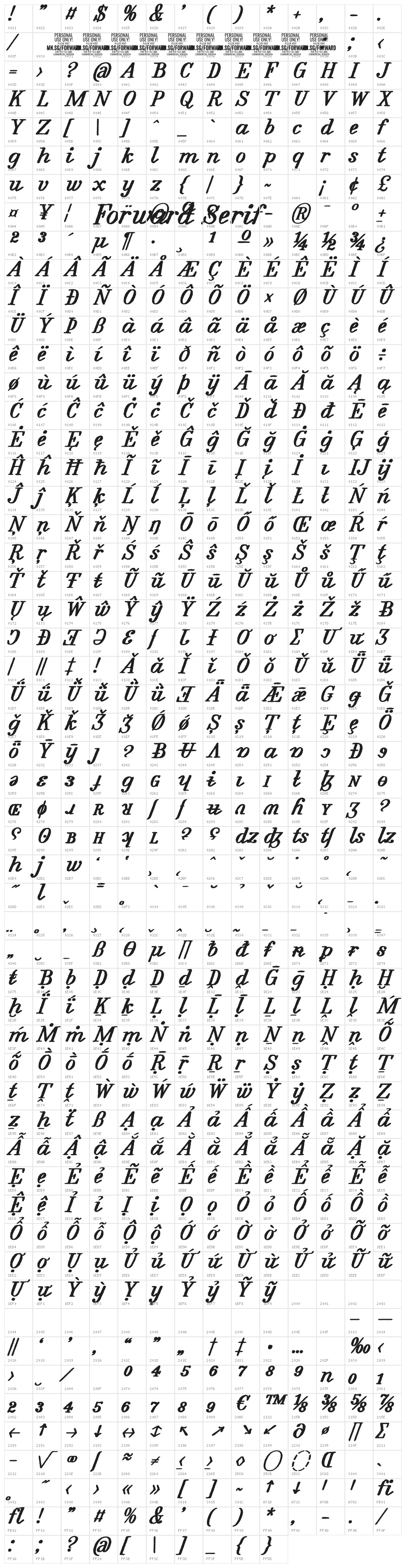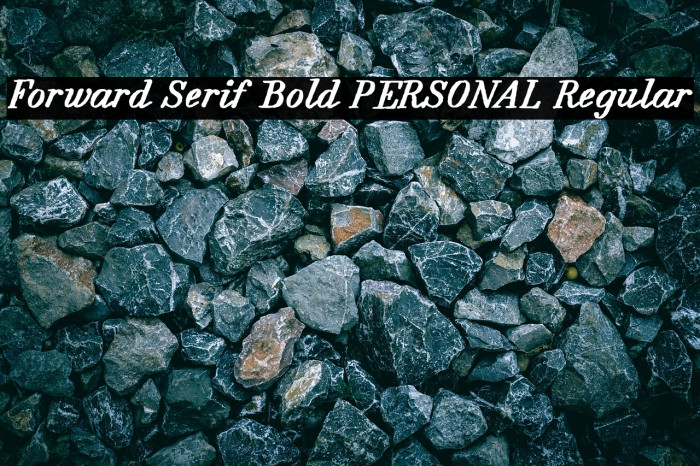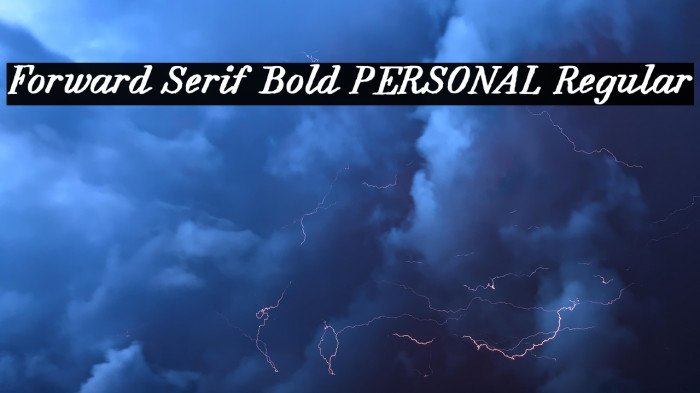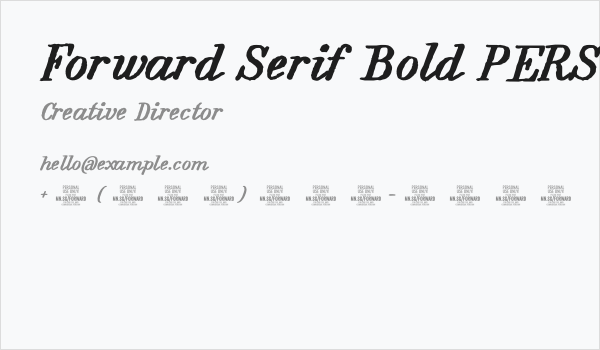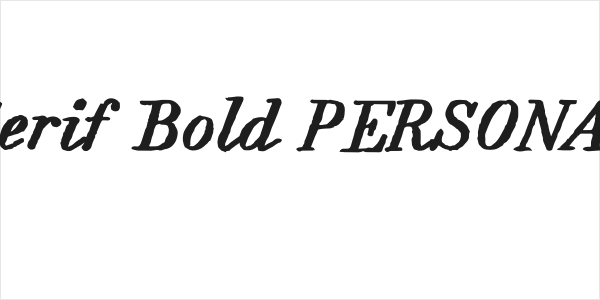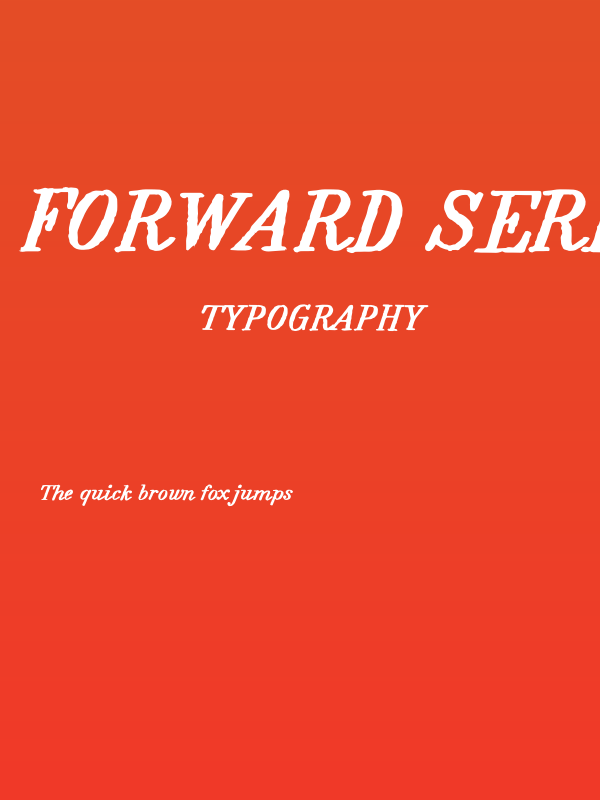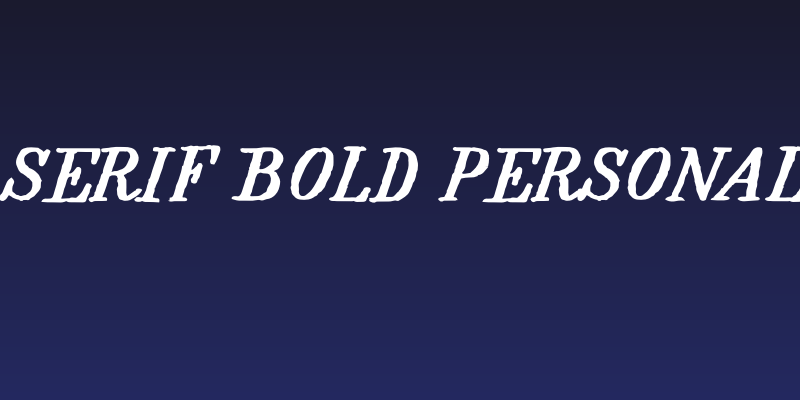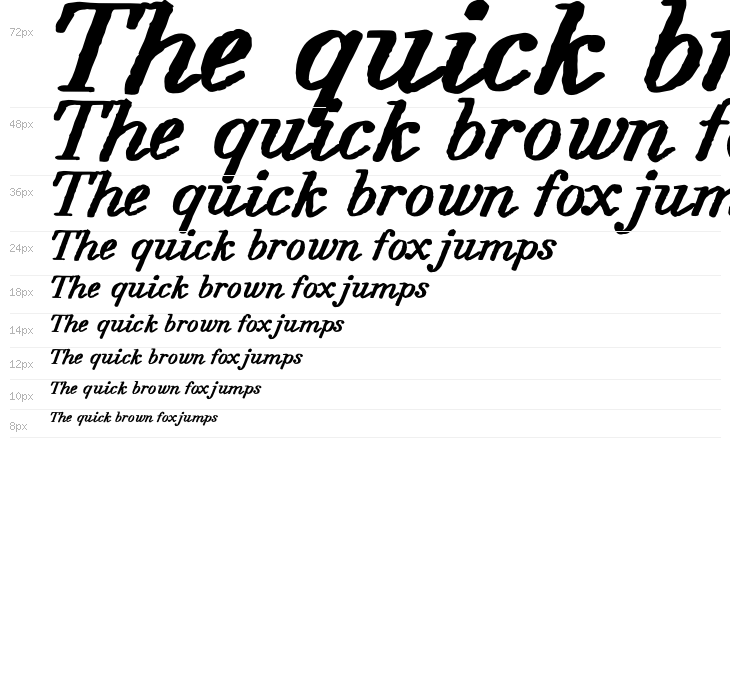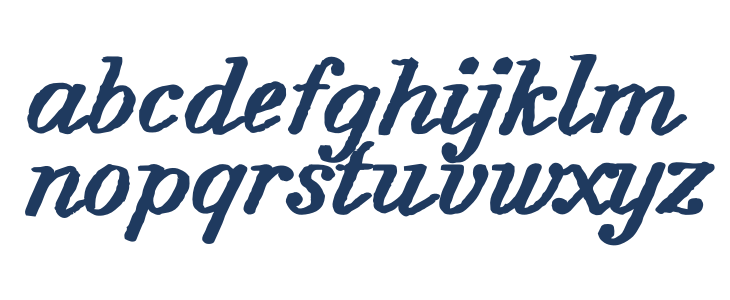
Forward Serif Bold PERSONAL Regular Font
Forward Serif Bold PERSONAL Regular Description
This font features a bold and dynamic serif style with a forward-leaning italic slant, giving it a sense of movement and energy. The uppercase letters are robust and commanding, while the lowercase letters maintain a consistent flow with slightly exaggerated serifs. The numerals are bold and easily distinguishable, complementing the overall aesthetic. Special characters are designed with the same boldness, ensuring uniformity across all glyphs. The font's high contrast between thick and thin strokes adds to its dramatic appearance, making it suitable for impactful designs.